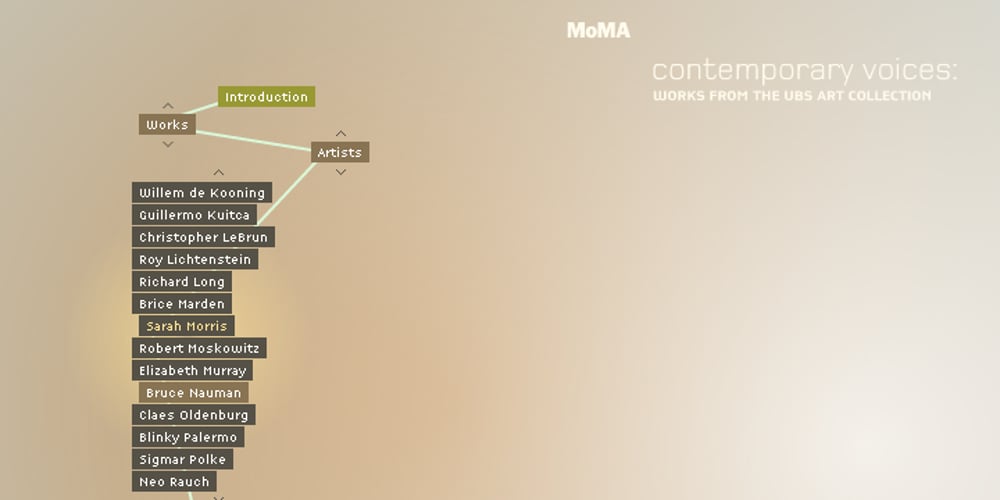
CP Company Flash Font Family was designed by Fabrizio Schiavi and published by FSD. CP Company Flash contains 3 styles and family package options. CP Company Flash is the version of CP Company designed for use in Adobe Flash. Available in three versions: Big to be used at 16pt, Medium at 16pt and Small at 8pt. Originally designed to be used in the cpcompany.com web site